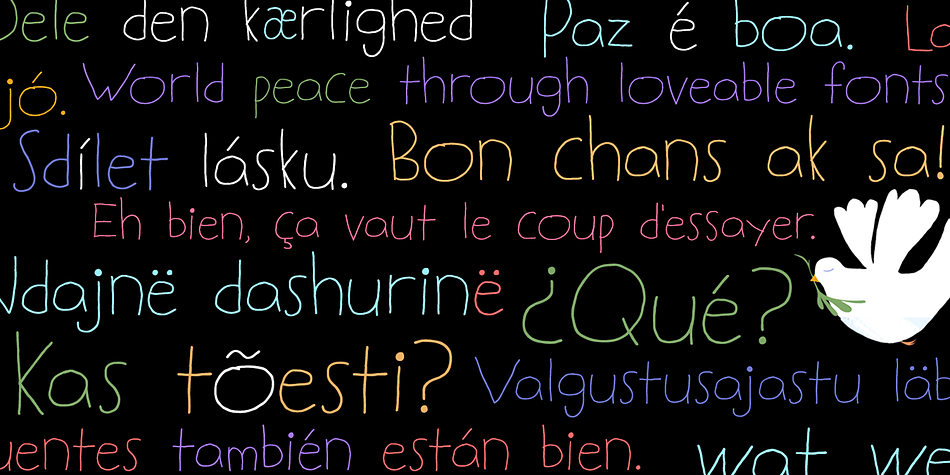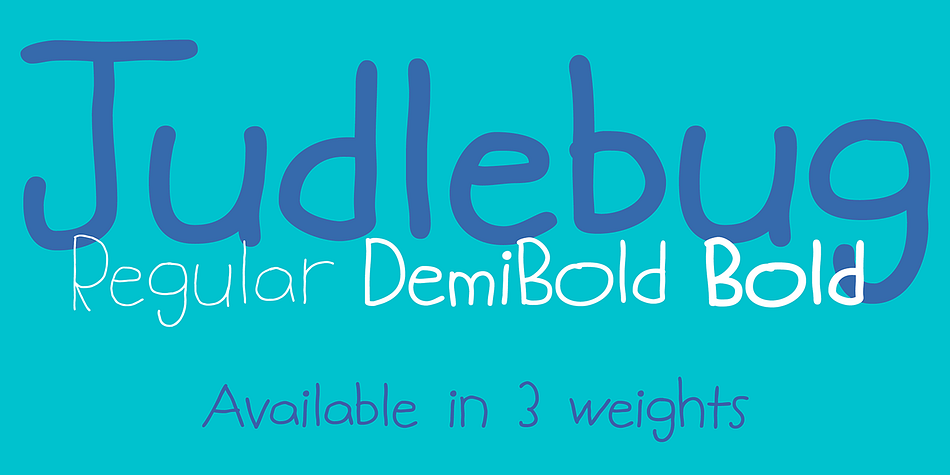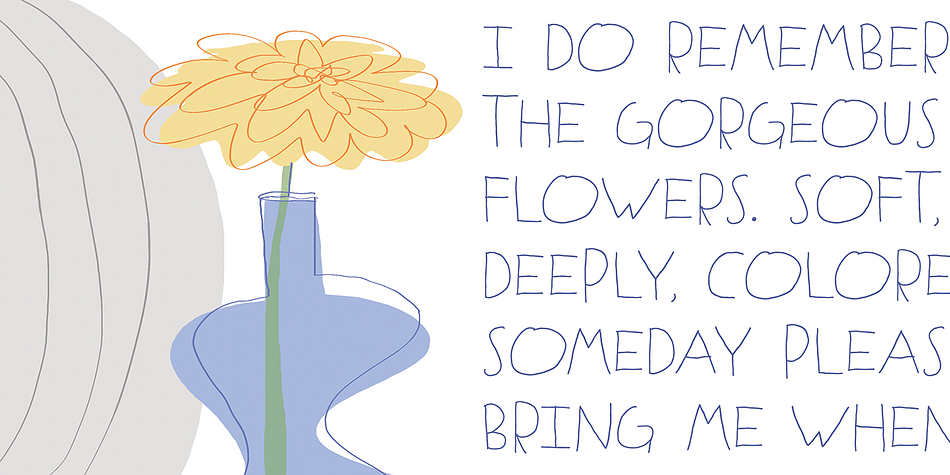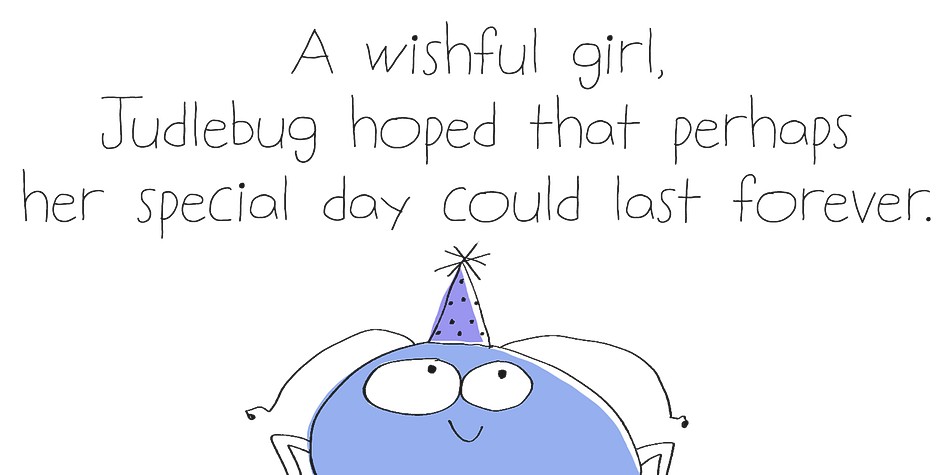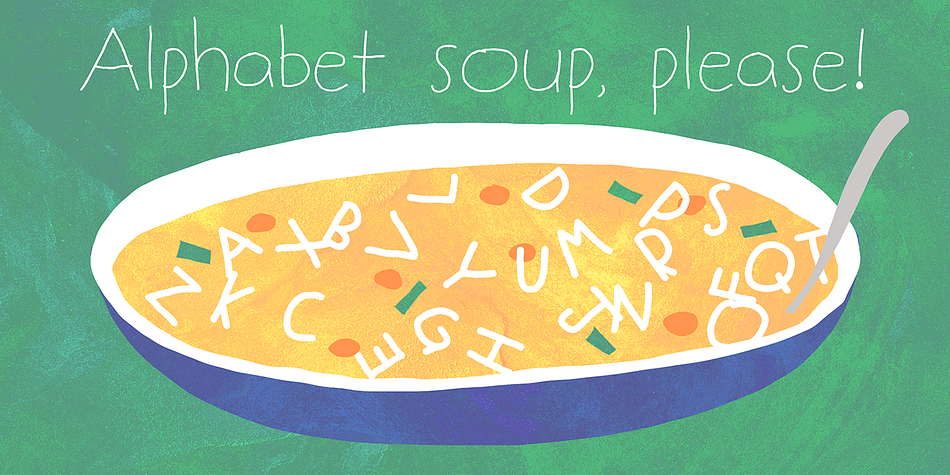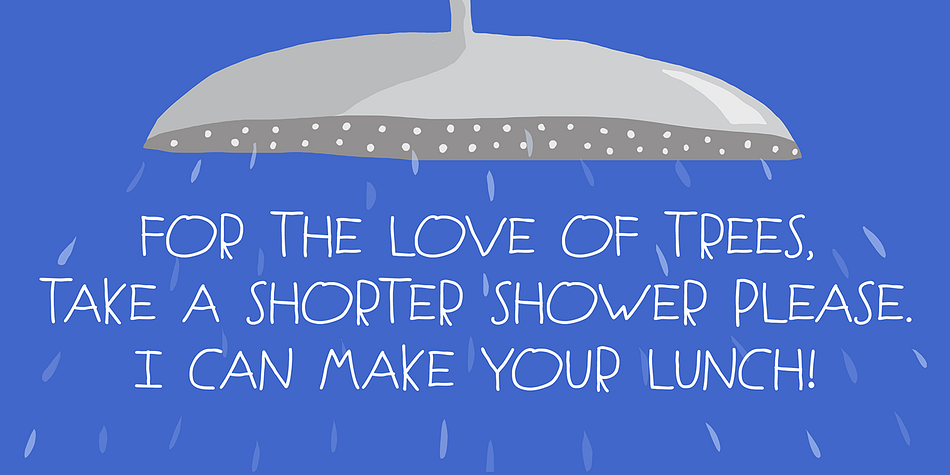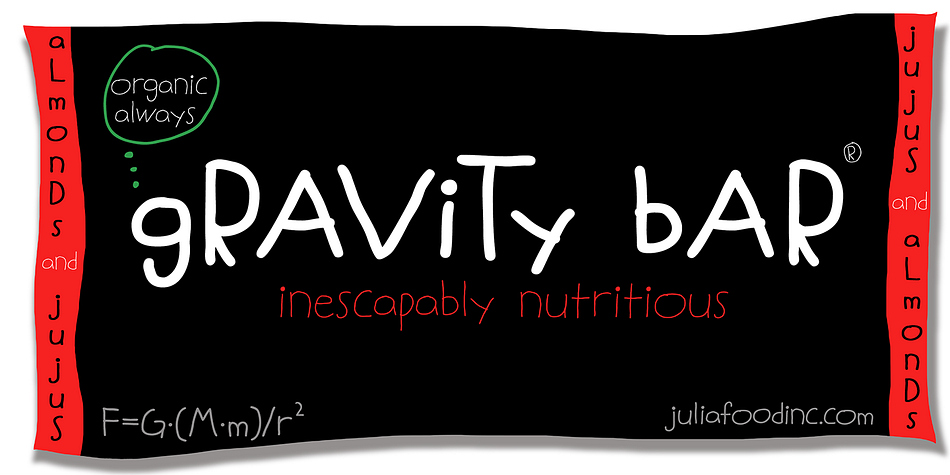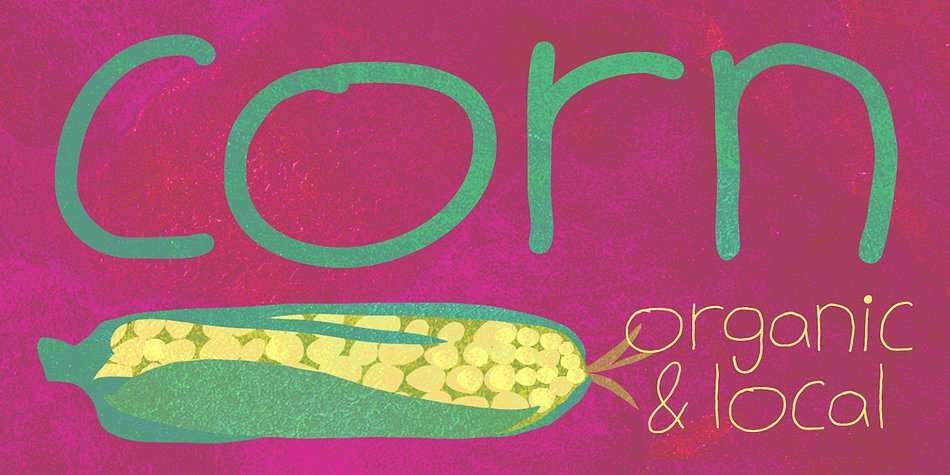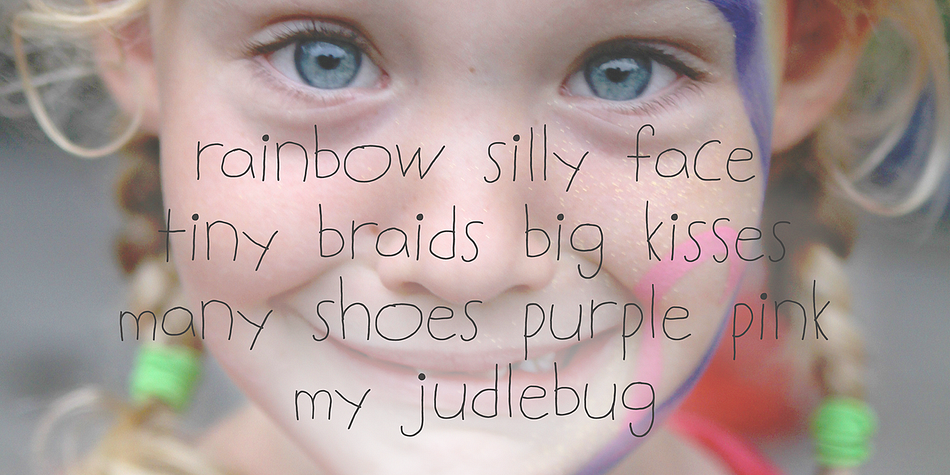
Designed by Amy Dietrich, Judlebug is a hand drawn and kids font family. This typeface has three styles and was published by Atlantic Fonts.
Confident, endearing and youthful, Judlebug is brimming with personality that’s hard to deny. Now available in 3 weights, Judlebug is ready to light things up!